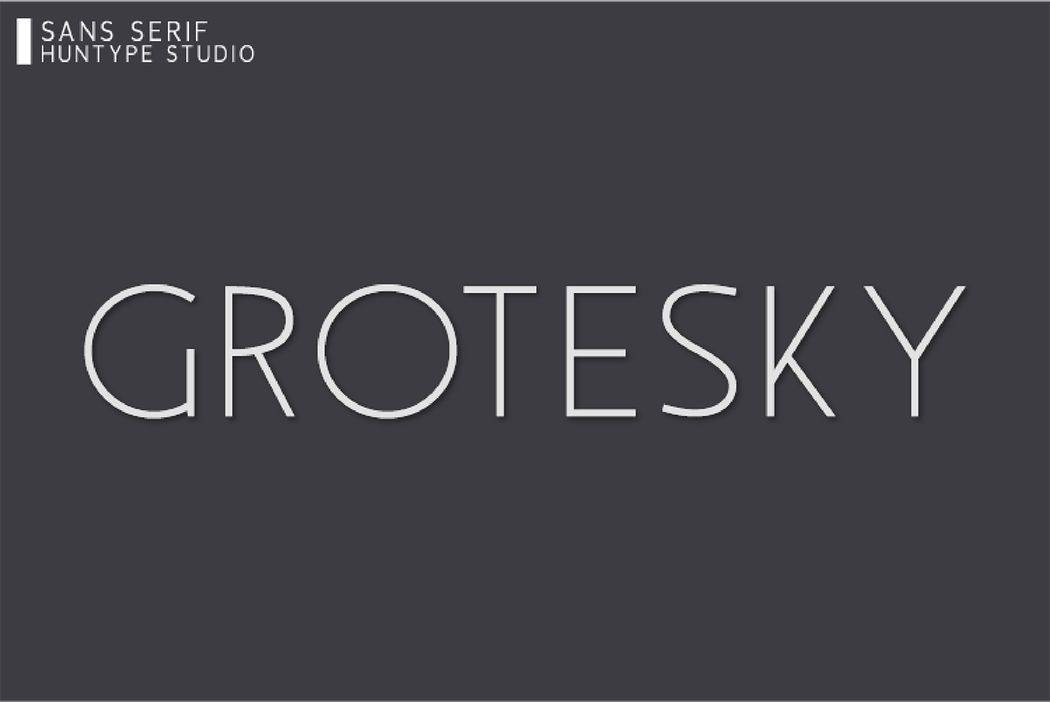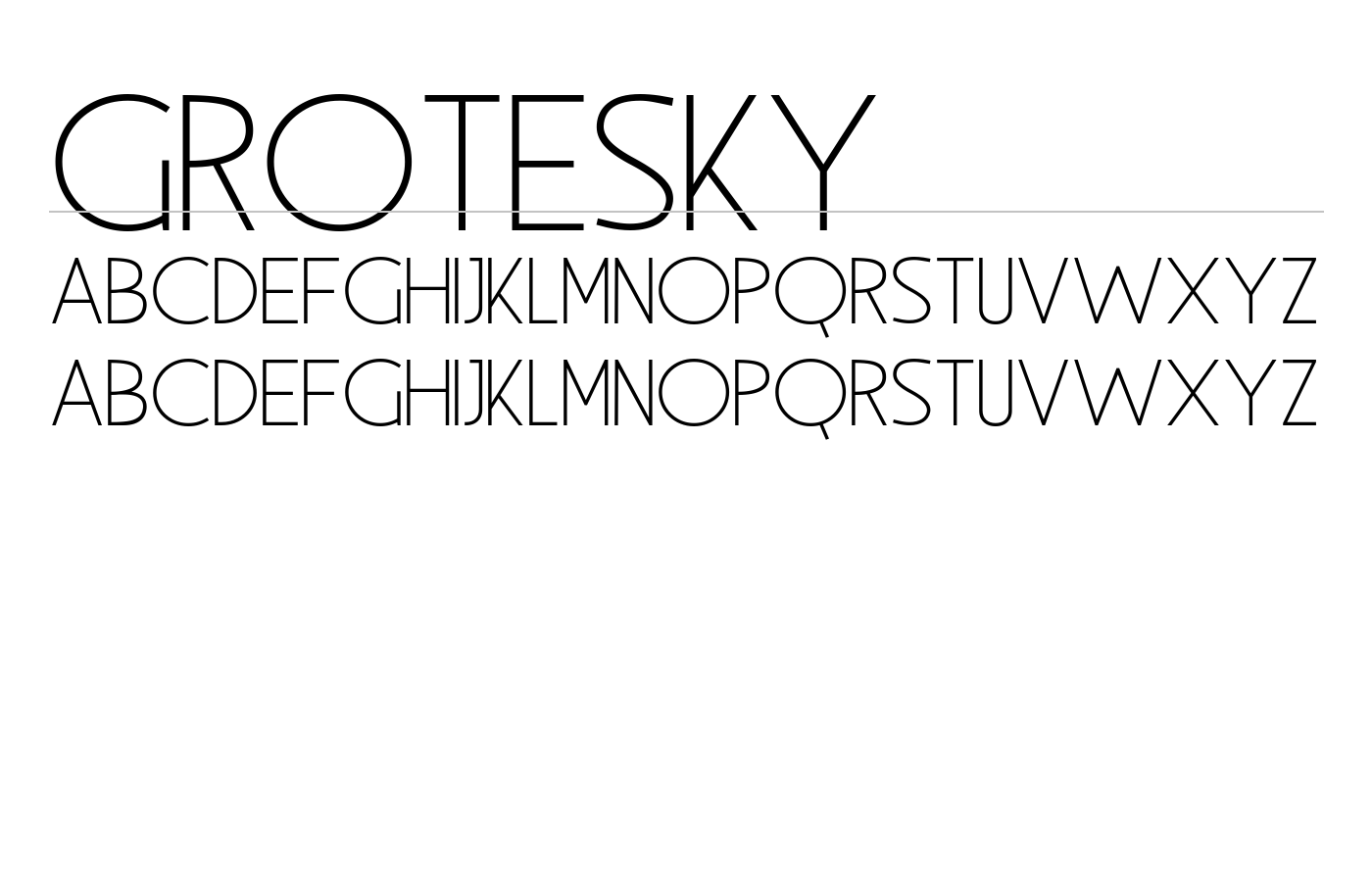
Grotesky is a sleek, modern sans serif font characterized by its thin, elegant strokes and high x-height, giving it a clean and airy feel. Its geometric shapes and uniform line weight create a minimalist and contemporary look, making it ideal for stylish branding, editorial headlines, and sophisticated design projects. This font works well where clarity and subtle sophistication are key, lending a refined yet approachable personality to the text.
Grotesky Font
About Grotesky Font
| Font family | Grotesky Font |